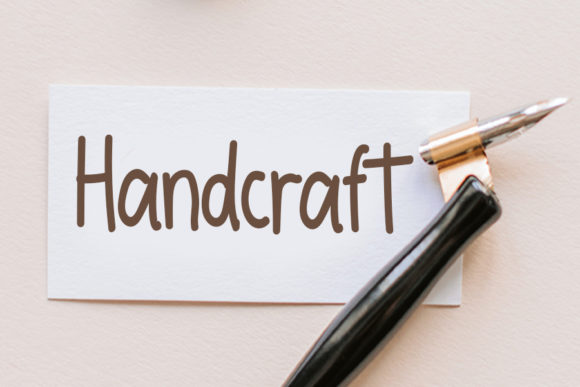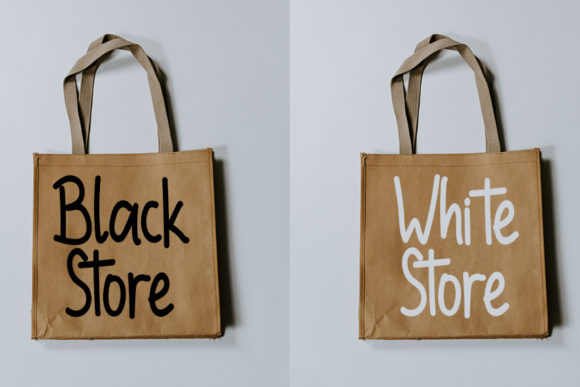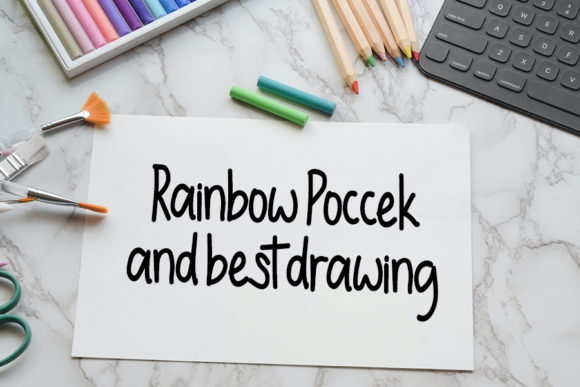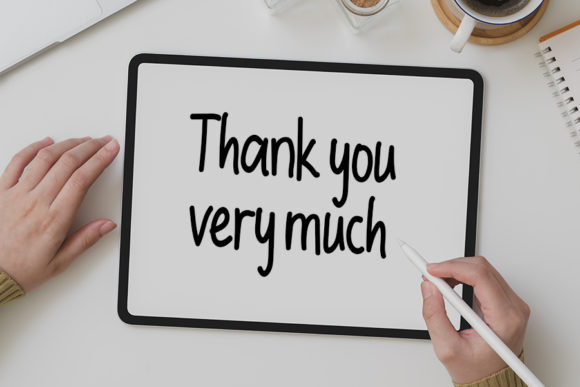
Merchandise Font – Free Download
Introduction to Merchandise Font
Merchandise is a friendly handwritten font.
It has a casual look and it will elevate a wide range of projects to the highest level, be it branding, headings, wedding designs, invitations, signatures, logos, labels, and much more .
Key Features of Merchandise Font